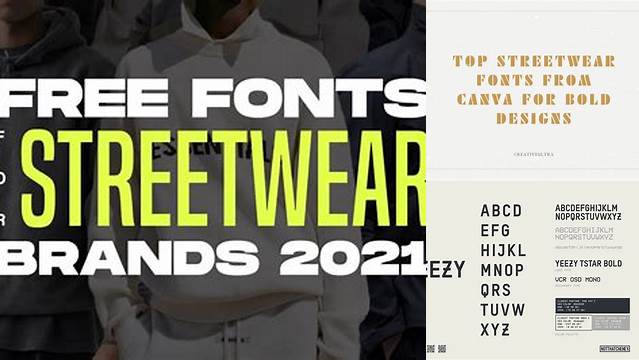
Best Streetwear Fonts On DaFont
Hey guys, if you're diving into the awesome world of streetwear, you know that the right font can totally make or break your brand's vibe. It's like the secret sauce that ties everything together, from your logo and website to your product designs and social media posts. And where do you go to find a treasure trove of free and cool fonts? DaFont, of course! This article will show you the best streetwear fonts on DaFont, helping you find the perfect typography to level up your streetwear game. So, buckle up, because we're about to dive deep into the world of awesome fonts, and how they can transform your brand. Get ready to discover some killer fonts that'll make your brand stand out from the crowd.
Why Font Choice Matters for Streetwear Brands
Alright, let's get real for a sec, choosing the right font is super important for a streetwear brand. It's not just about picking something that looks cool; it's about crafting an identity that speaks volumes without even saying a word. The font you choose tells a story, sets a tone, and connects with your target audience on a deeper level. Think about it: a bold, edgy font can scream rebellion and attitude, perfect for a brand that's all about pushing boundaries. On the other hand, a clean, minimalist font can suggest sophistication and a focus on quality, which might be spot-on for a more high-end streetwear label. See, it's all about the message you want to send and making sure your font choice aligns with your brand's core values and aesthetic. Furthermore, the right font can make your brand recognizable. When people see your logo or a piece of your design, they should instantly recognize your brand, and the font plays a huge role in that. Consistent use of a unique and memorable font helps build brand recognition and loyalty over time. This consistency is critical for creating a strong brand identity that resonates with your audience. This recognition will help customers quickly identify and connect with your brand, making it a lasting impression. Ultimately, your font choice is a huge part of your brand's visual language.
It's an essential element of your overall design strategy, like the color palette, imagery, and overall aesthetic. Every element should work together to create a cohesive and compelling brand experience. A well-chosen font enhances your brand's message, reinforces its personality, and contributes to a memorable and impactful brand identity. Think of it as the personality of your brand that reflects its style and values. Think about the big players in the streetwear game, like Supreme or Off-White. They've got iconic fonts that are instantly recognizable and help define their brand. You want that kind of power, right? Also, if you're running an online store, a well-chosen font can improve the readability of your website, making it easier for customers to browse your products and learn about your brand. A font that's easy on the eyes and provides a great user experience will keep visitors engaged and more likely to make a purchase. Selecting the right font will make a huge difference when it comes to brand recognition, visual appeal, and communication to the target audience. This makes your brand memorable, and keeps your audience coming back for more.
Top Streetwear Fonts to Explore on DaFont
Okay, let's get down to brass tacks. DaFont is an amazing resource for finding free fonts, and there are tons of great options perfect for streetwear. Here are some of the best streetwear fonts on DaFont that you should definitely check out, grouped by their general style, so you can easily find what matches your brand's vibe.
Bold and Edgy Fonts
If your brand has a rebellious, in-your-face attitude, then these fonts are your best friends. They're loud, they're proud, and they demand attention. These fonts are great for logos, headlines, and anywhere you want to make a statement. Here are some suggestions:
- ChunkFive: A bold, slab serif font that's perfect for making a statement. It's strong, classic, and works well in both large and small sizes.
- Impact: This is a super-heavy, impactful font that's great for logos, headlines, and anywhere you want to make a strong visual impact. Think of it as the visual equivalent of a punch to the gut. You'll love it.
- Bebas Neue: This is a sans-serif font that's clean, and modern, yet still has a strong presence. Great for headlines, and perfect for all kinds of design.
These fonts scream attitude. They are perfect for brands that want to project a sense of confidence, rebellion, or raw energy. They will help you create designs that grab attention and stand out from the crowd. The bold typefaces in the list can become a powerful tool for making your brand memorable and iconic. Also, don't be afraid to experiment with them. Combine them with graphics, patterns, or colors to create a style that makes a statement. When you use bold and edgy fonts, ensure they're easily readable, especially in smaller sizes. Avoid using them in large blocks of text, as they can be tiring to read. A well-executed design with the correct font can elevate your brand to a whole new level. Also, always make sure to follow the font's licensing terms. Using them without permission can lead to legal issues.
Clean and Minimalist Fonts
If your brand leans toward a more modern, sophisticated aesthetic, these fonts will be your go-to. They're clean, uncluttered, and perfect for conveying a sense of quality and attention to detail. Here are some great options:
- Montserrat: This sans-serif font is super versatile and looks great in a wide range of applications. It's clean, modern, and easy to read, making it a great choice for both headlines and body text.
- Raleway: A stylish sans-serif font that's perfect for a sleek, contemporary look. It's a great choice for a logo, website, and other promotional materials.
- Open Sans: This is a very popular, clean, and neutral sans-serif font. It's very readable, making it great for website copy, and it's an excellent font for many design applications.
These fonts are all about elegance and simplicity. They create a sense of sophistication and make your brand look polished and professional. This is the best option for any brand that prioritizes sleekness and modernity. They also provide a clean and modern look and feel, making them great for web design, or even marketing materials. When using these fonts, focus on negative space and simplicity in your designs. Use clean layouts and avoid clutter. Always consider the overall visual hierarchy and ensure that your message is clear and easy to understand. This will create designs that resonate with your audience and perfectly convey your brand. This style is ideal for brands aiming to present themselves as premium, forward-thinking, and design-focused. These can be combined with bright, modern colors for a very stylish effect.
Graffiti-Inspired Fonts
If your brand is all about street culture and urban vibes, these fonts will add the perfect touch of authenticity. They're inspired by graffiti art and give your designs a raw, energetic feel. Here are some choices:
- DirtyHeadline: This font is grungy, imperfect, and full of street style. Great for headlines and short bursts of text.
- Bombing: If you're looking for something that looks like it was straight off a wall, check this one out. It is a bold, graffiti-style font with a distressed look, perfect for logos, posters, and designs that need an urban edge.
Conclusion: Get Creative with Streetwear Fonts
So there you have it, guys! With the best streetwear fonts on DaFont and a little creativity, you can create a brand that truly stands out from the crowd. Don't be afraid to experiment, try out different fonts, and find the perfect typography that represents your brand's unique personality. Your brand's visuals are everything, so take your time and choose fonts that are right for you. Always consider your target audience and the message you want to convey. Get out there, start exploring DaFont, and create some killer designs that will turn heads! The right typography can make a big difference in your brand's personality. Go out there and explore, experiment, and find the perfect font!